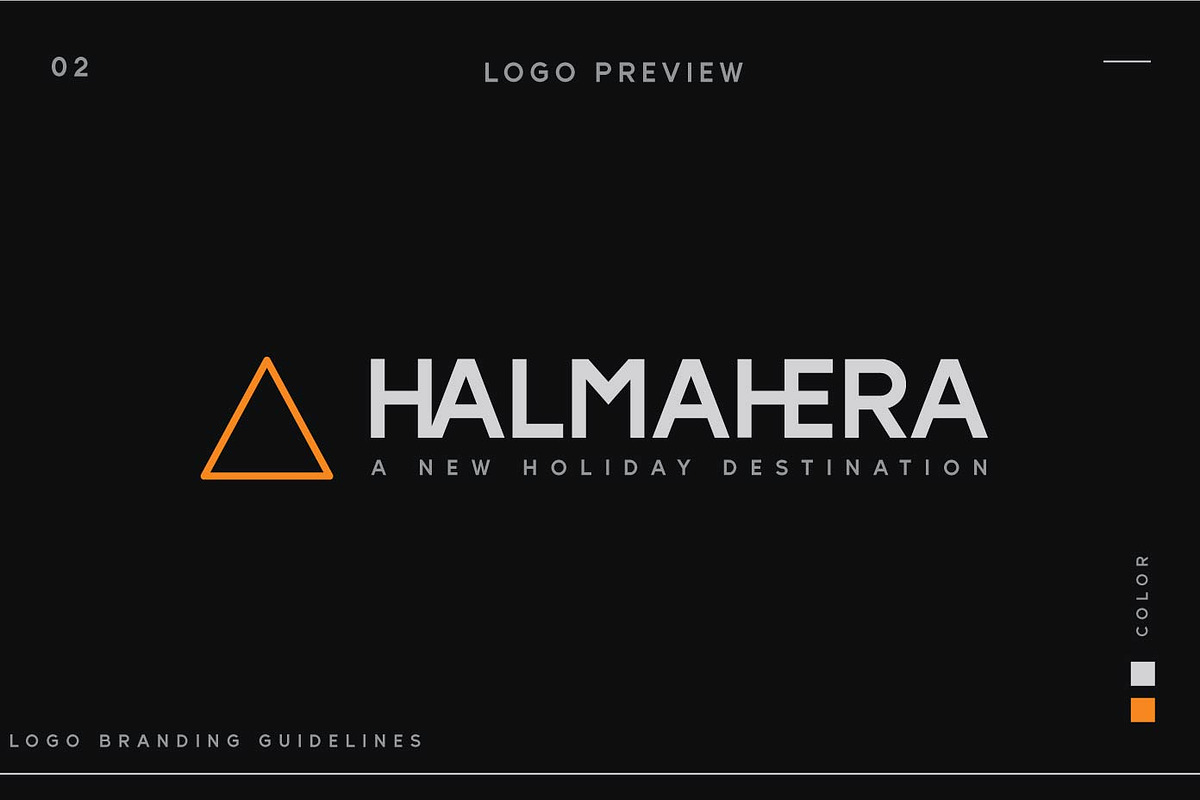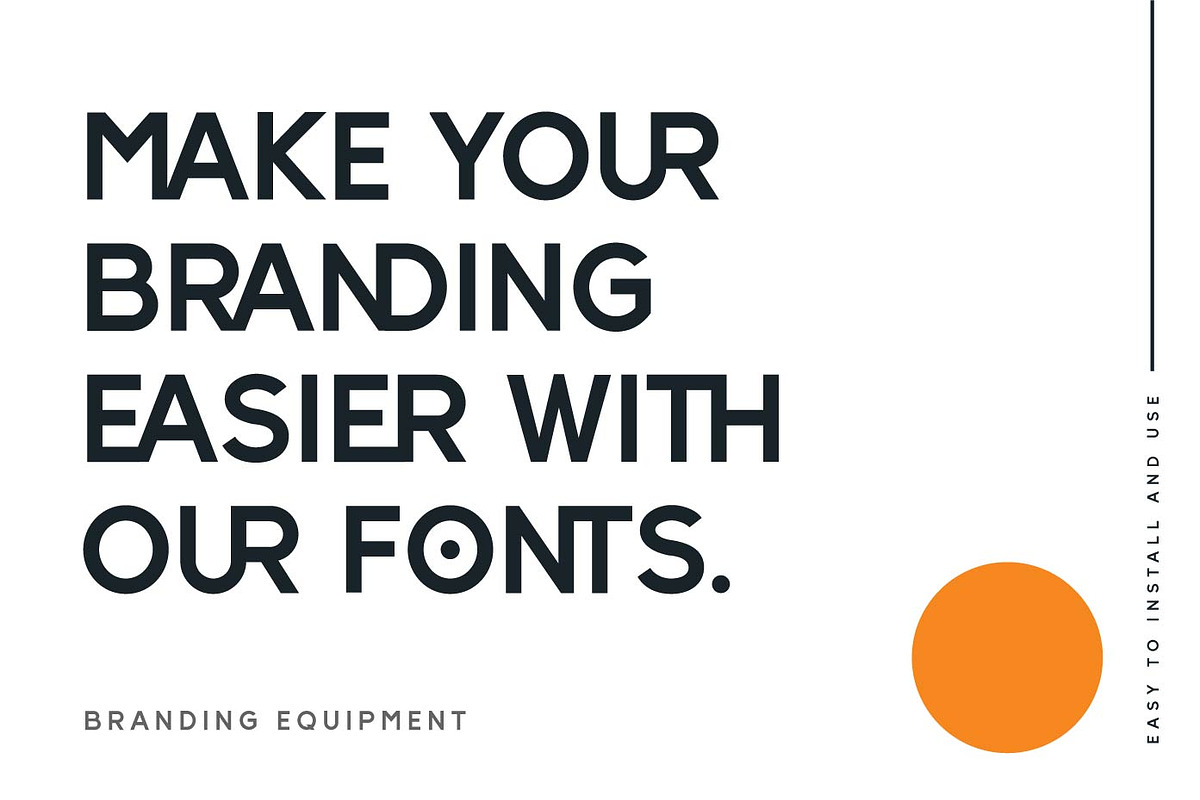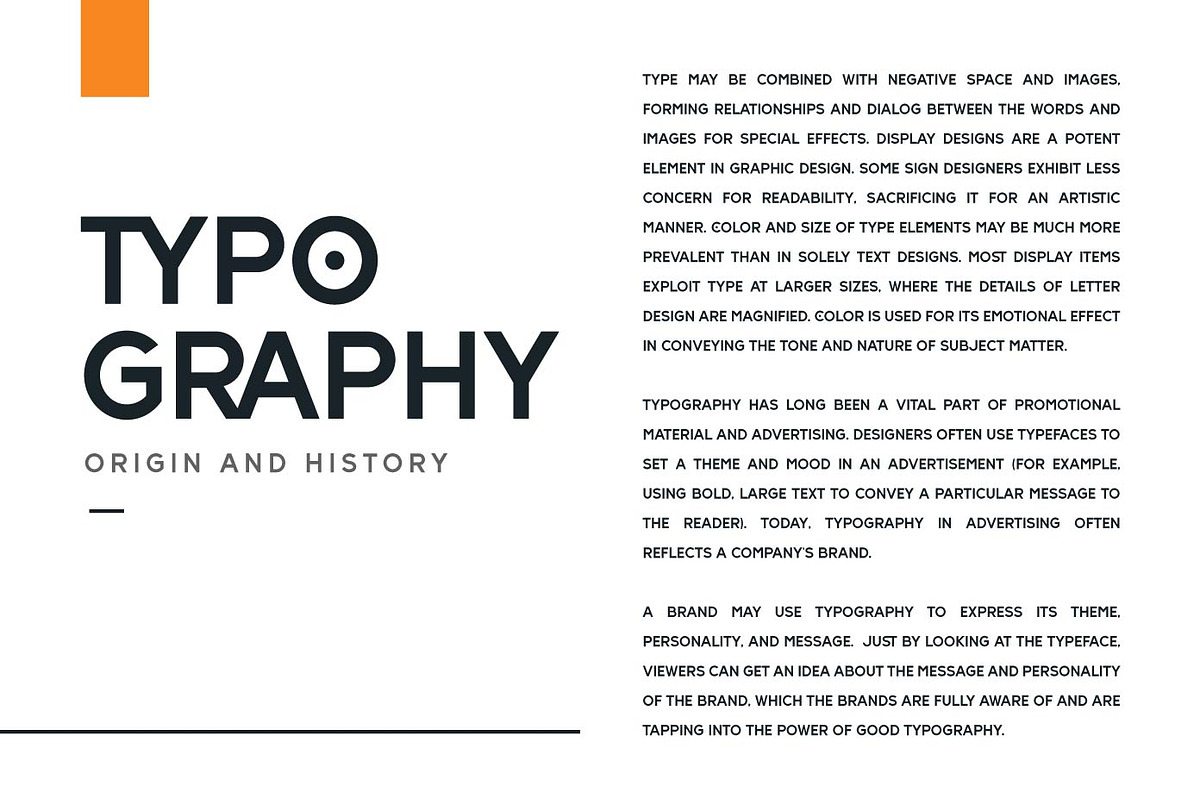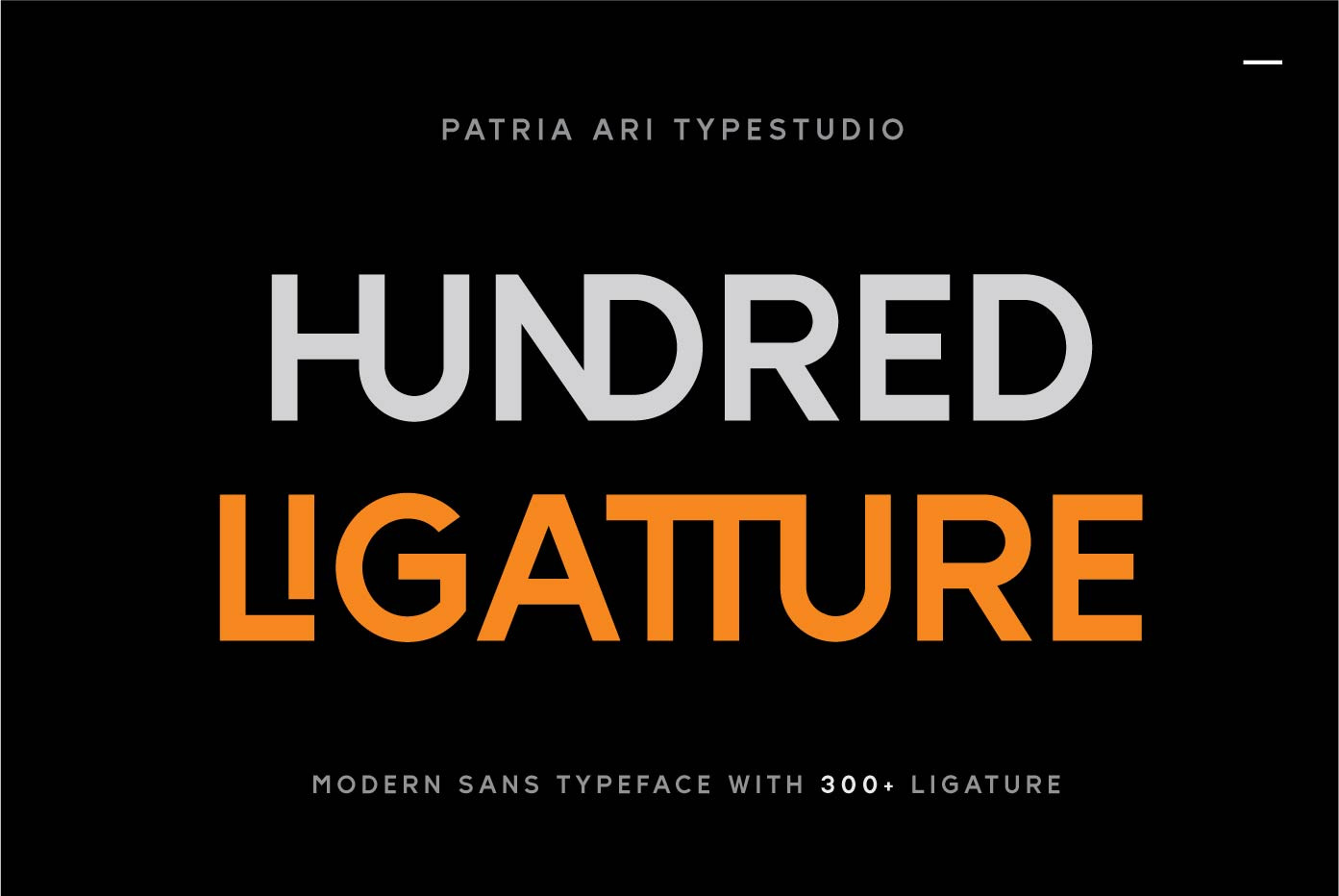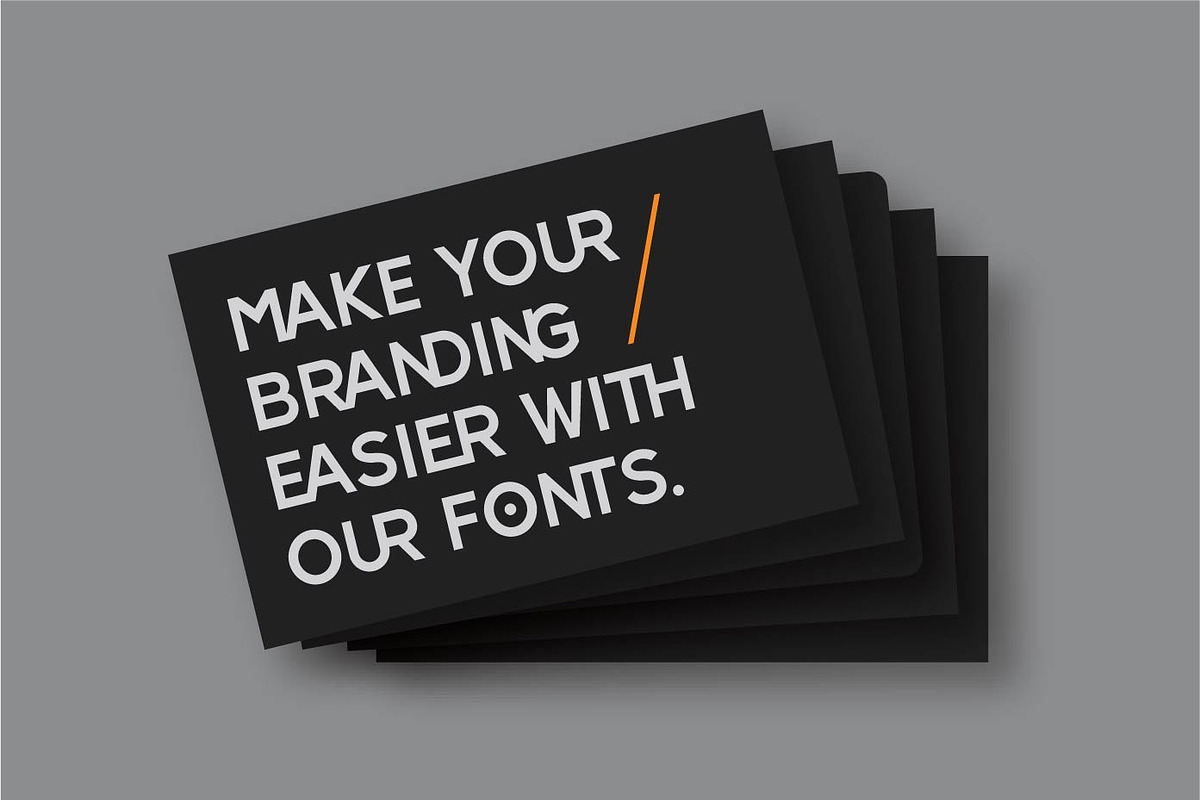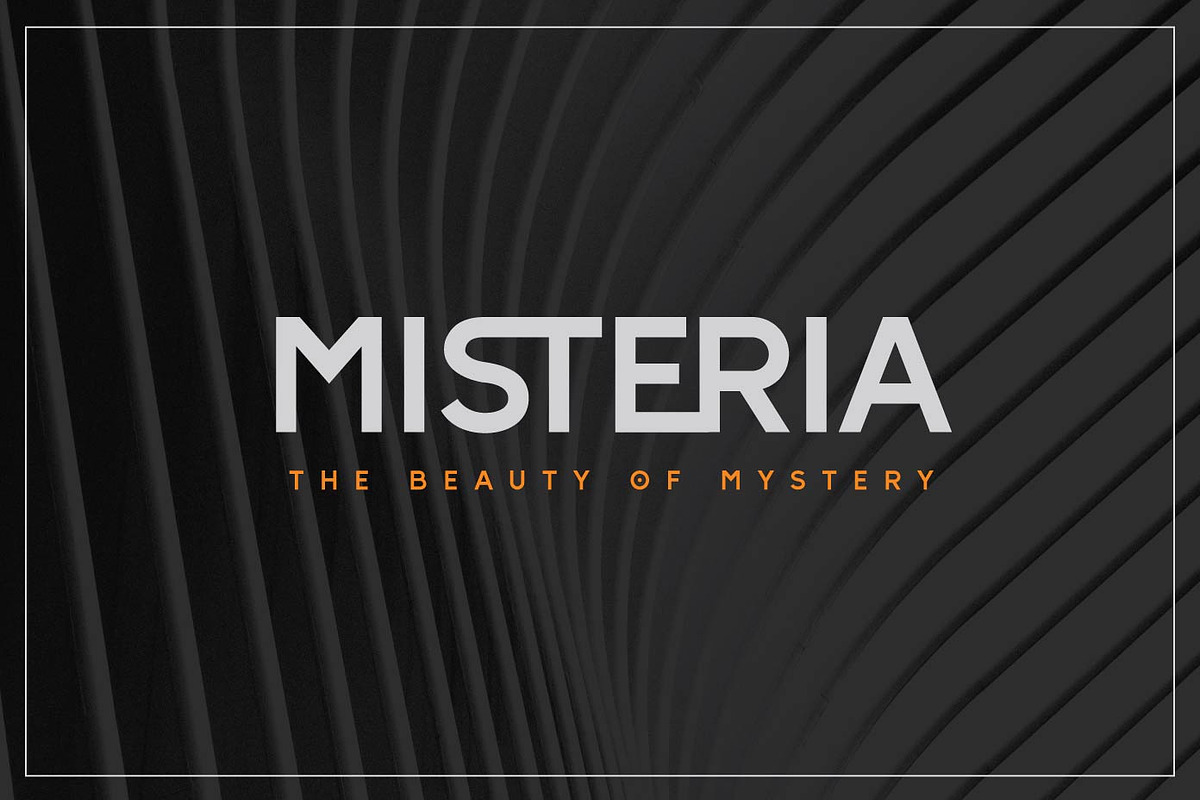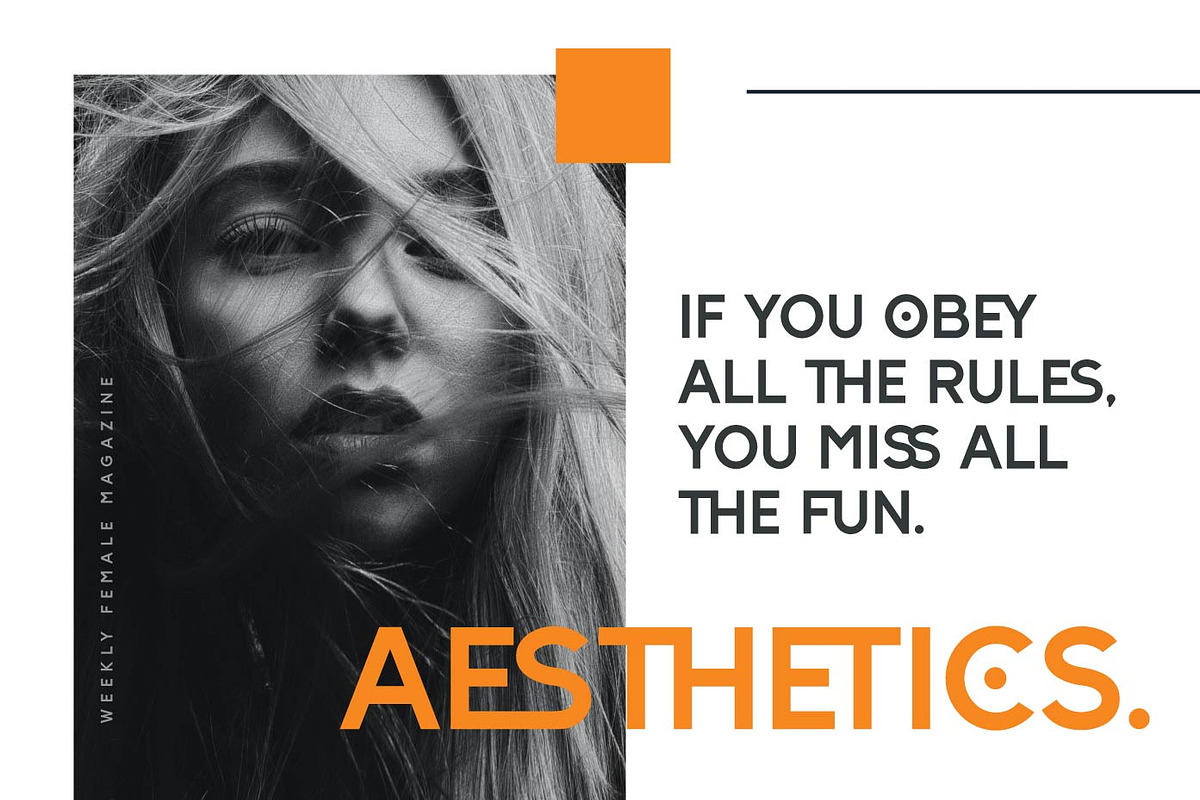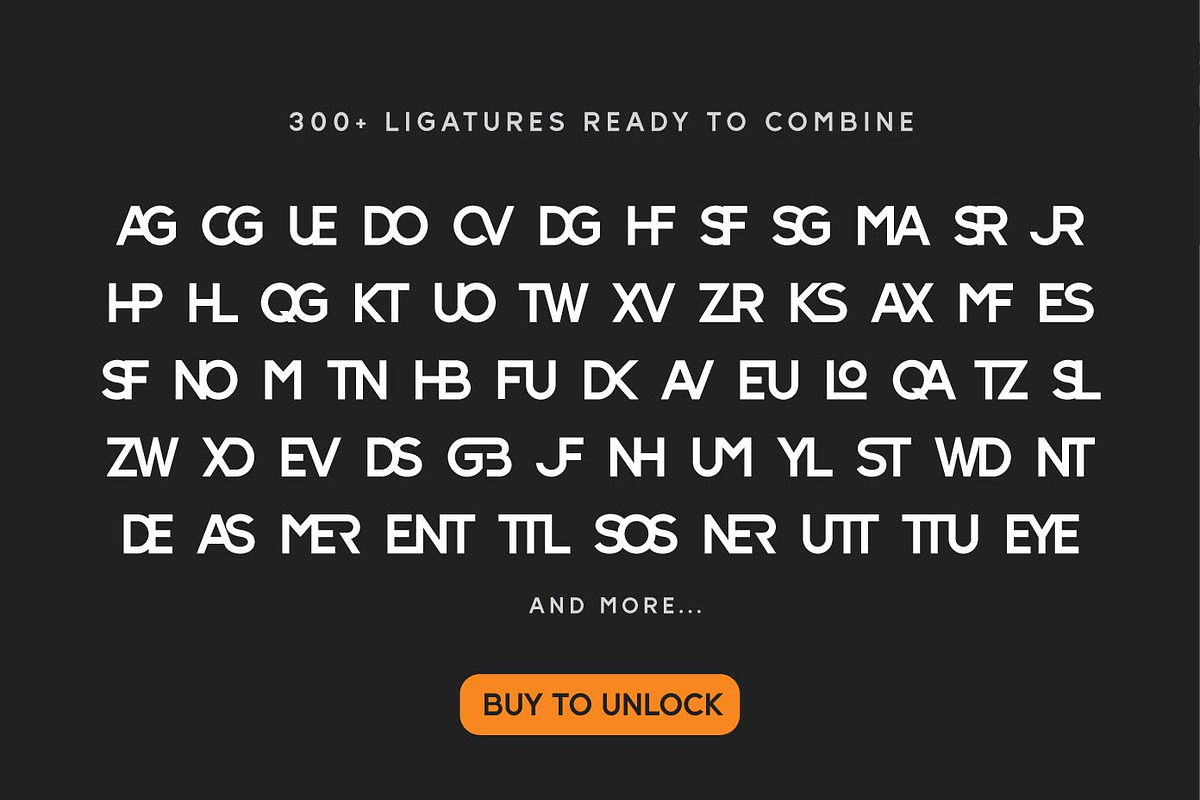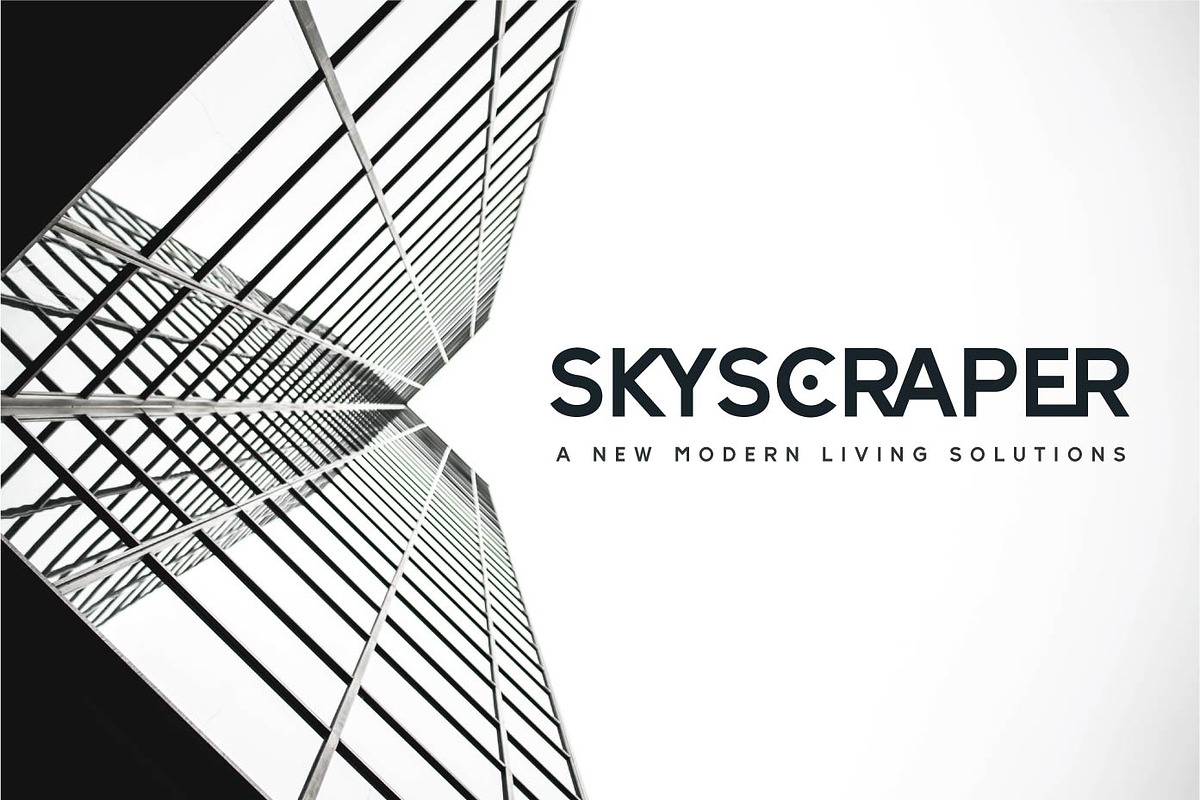
Hundred Ligatture Logo Font
Introducing - Hundred Ligatture, a modern sans logo font with more than 300 discretionary ligatures ready to be combined. Hundred Ligatture is suitable for headlines of all sizes, editorial design, branding, packaging, web and broadcast use, etc.
This font designed with modern forms, so each individual character is quickly and easily recognized. Such distinctness makes it good for signage and display work.